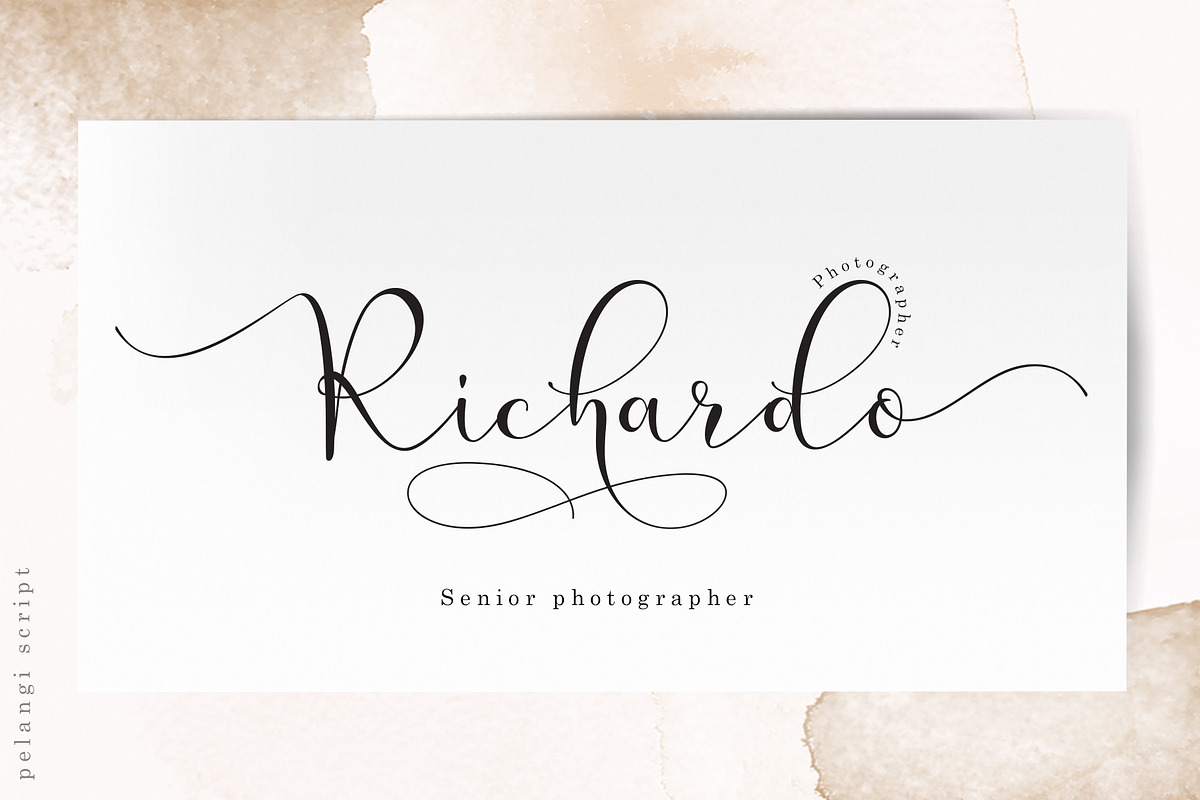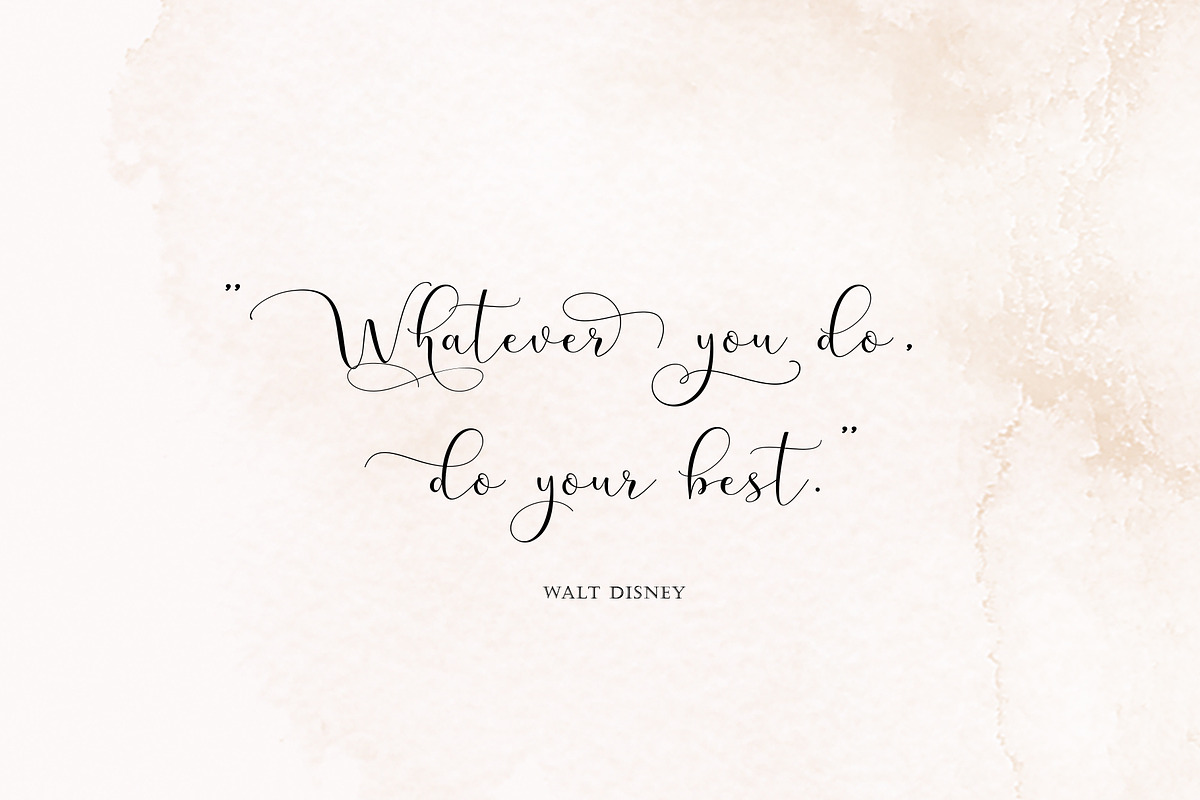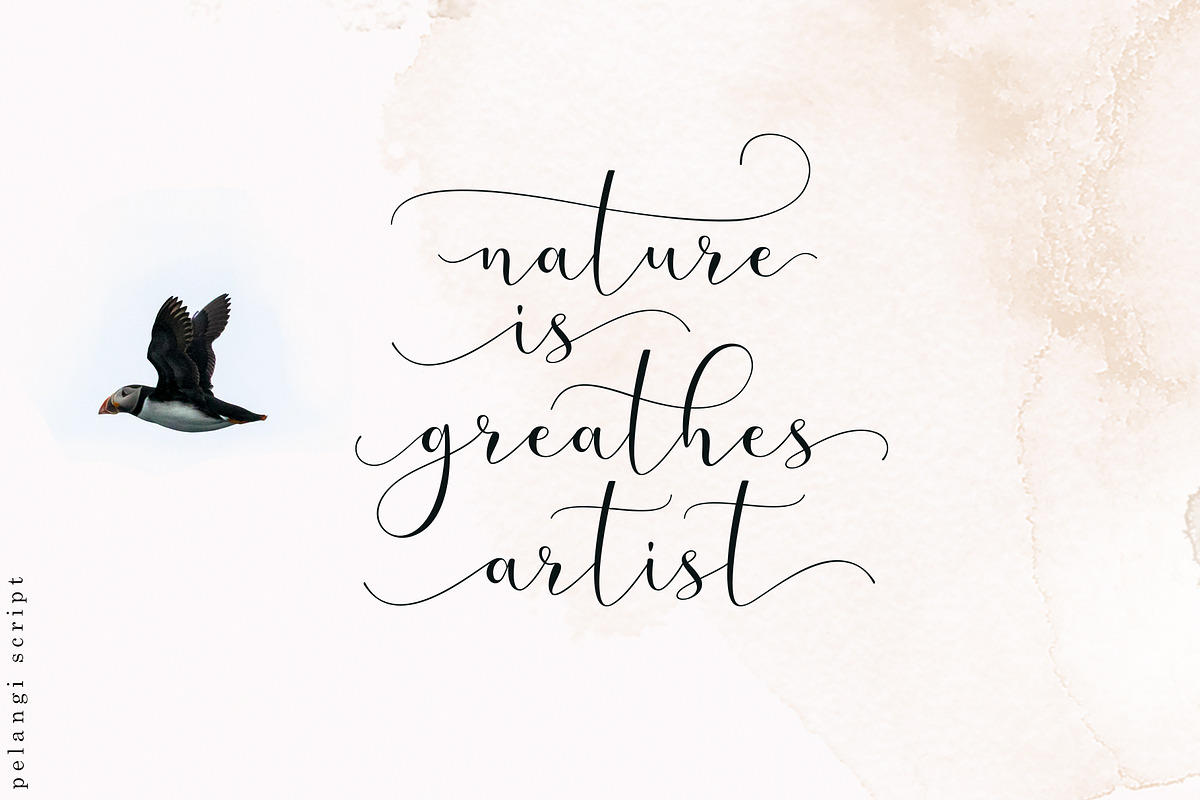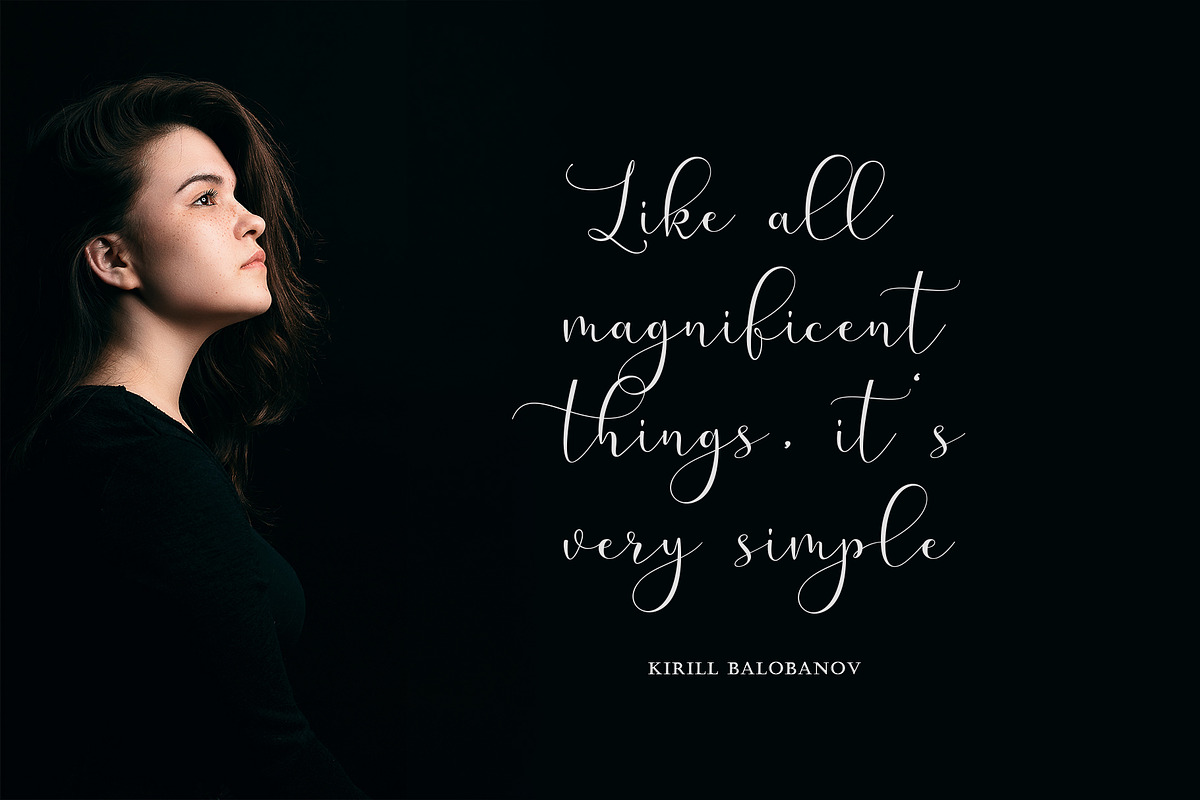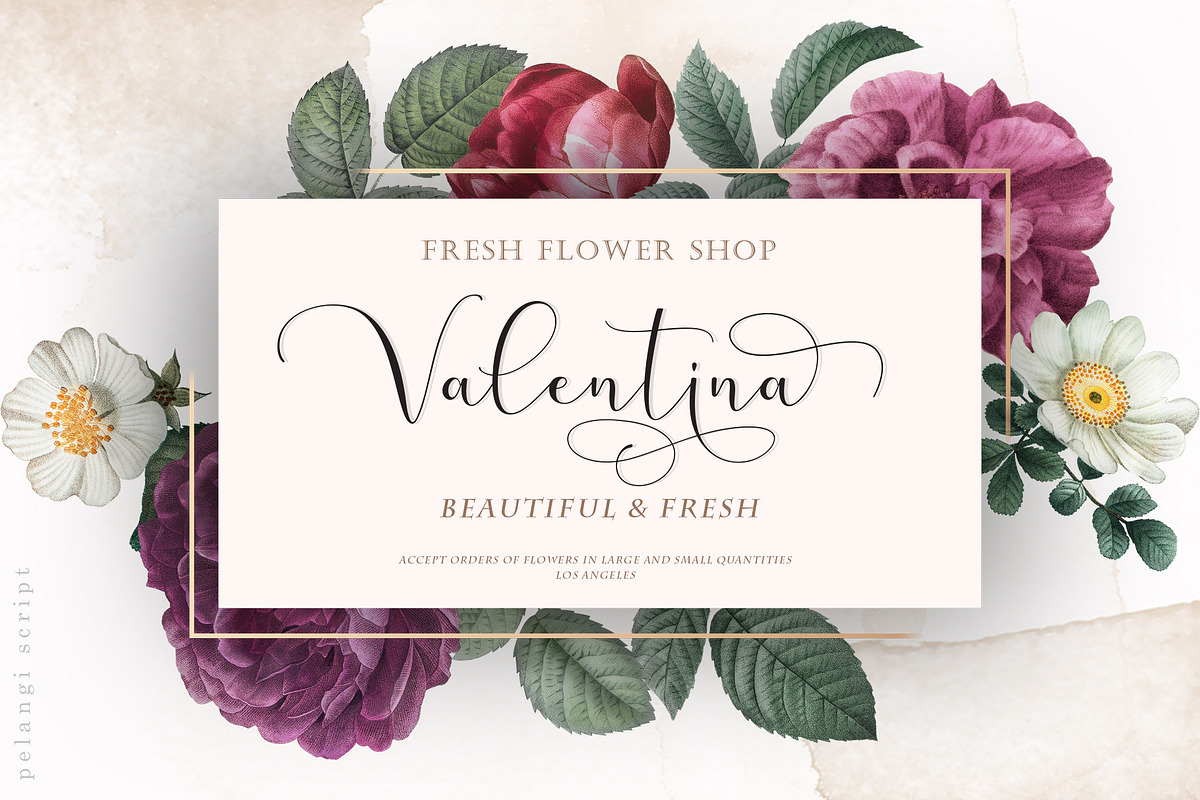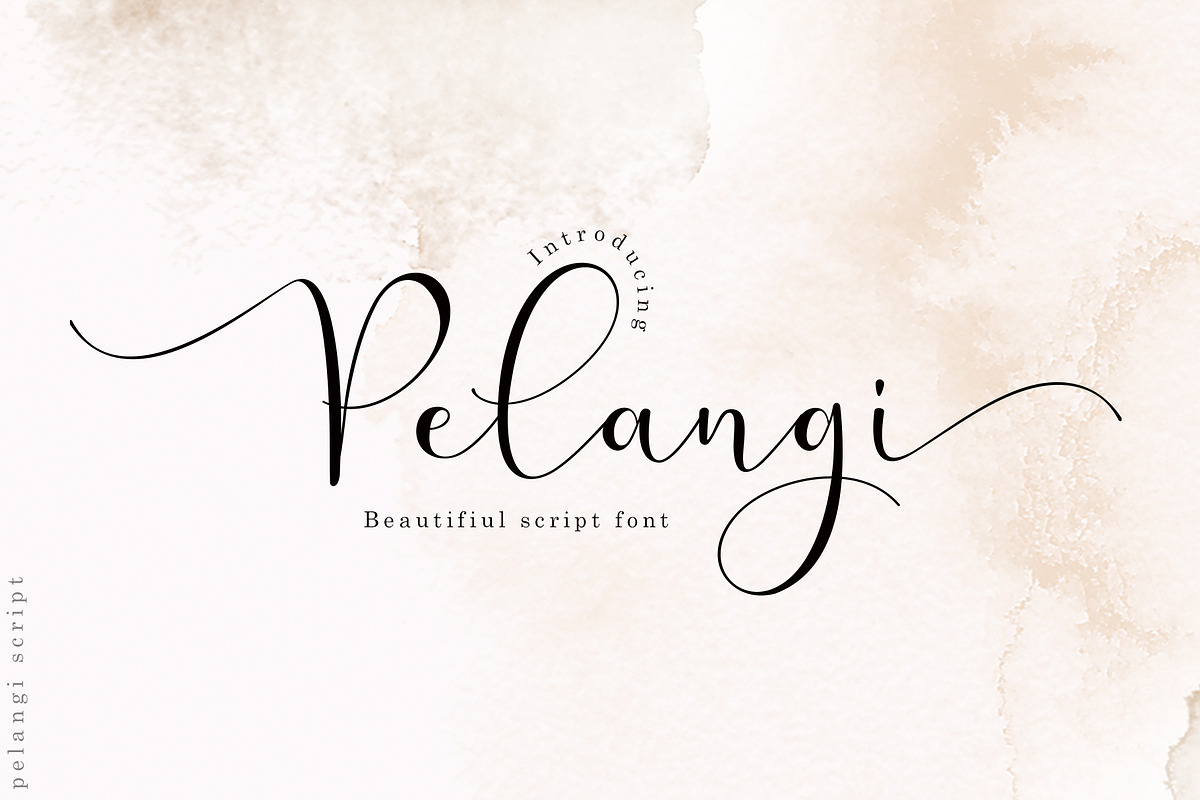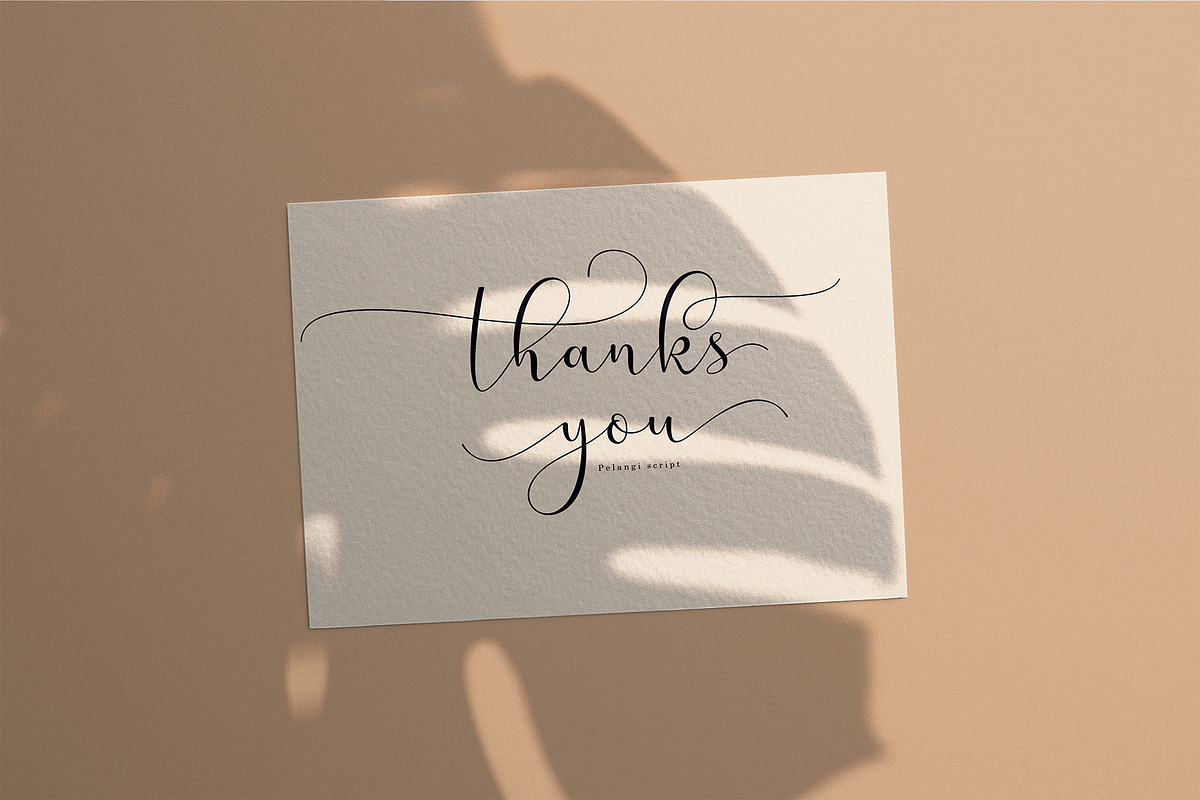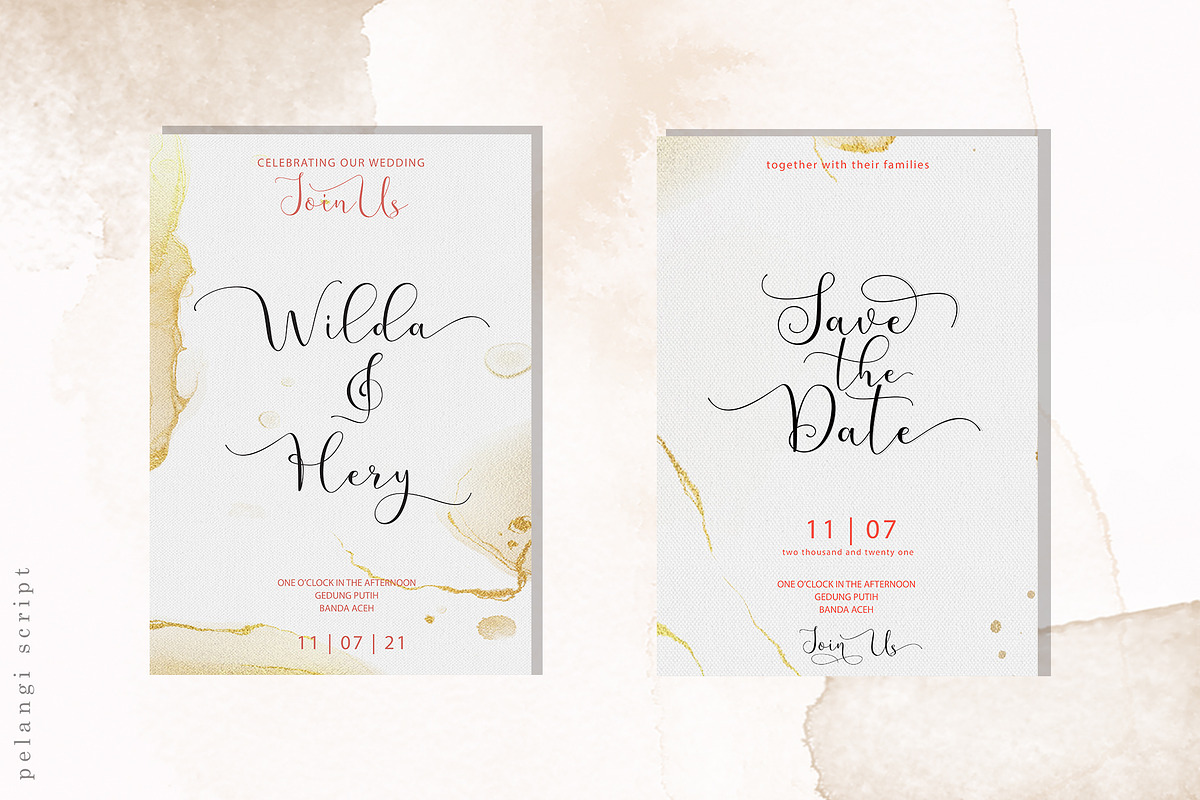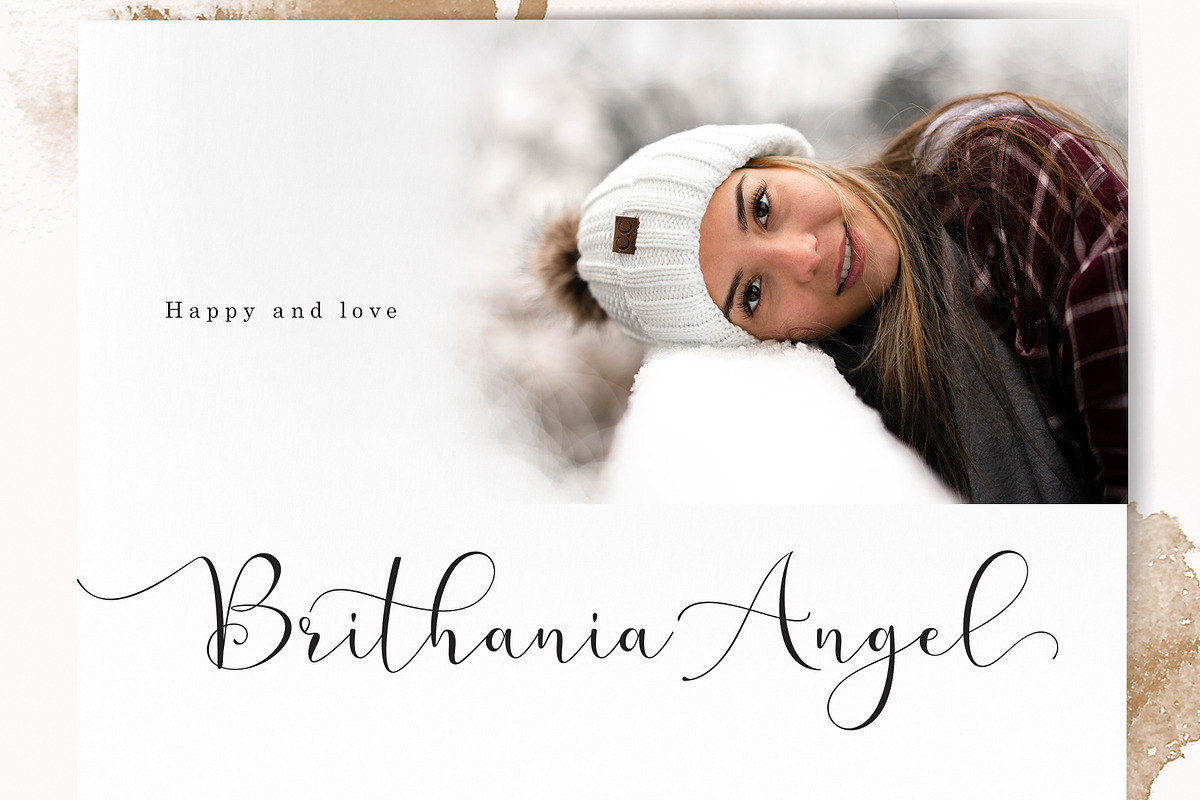
Pelangi script
Pelangi script is a natural handwritten font in the best style, with curves that are very beautiful in view, will be very suitable for your template, such as:
greeting cards, branding materials, business cards, quotes, posters and more!